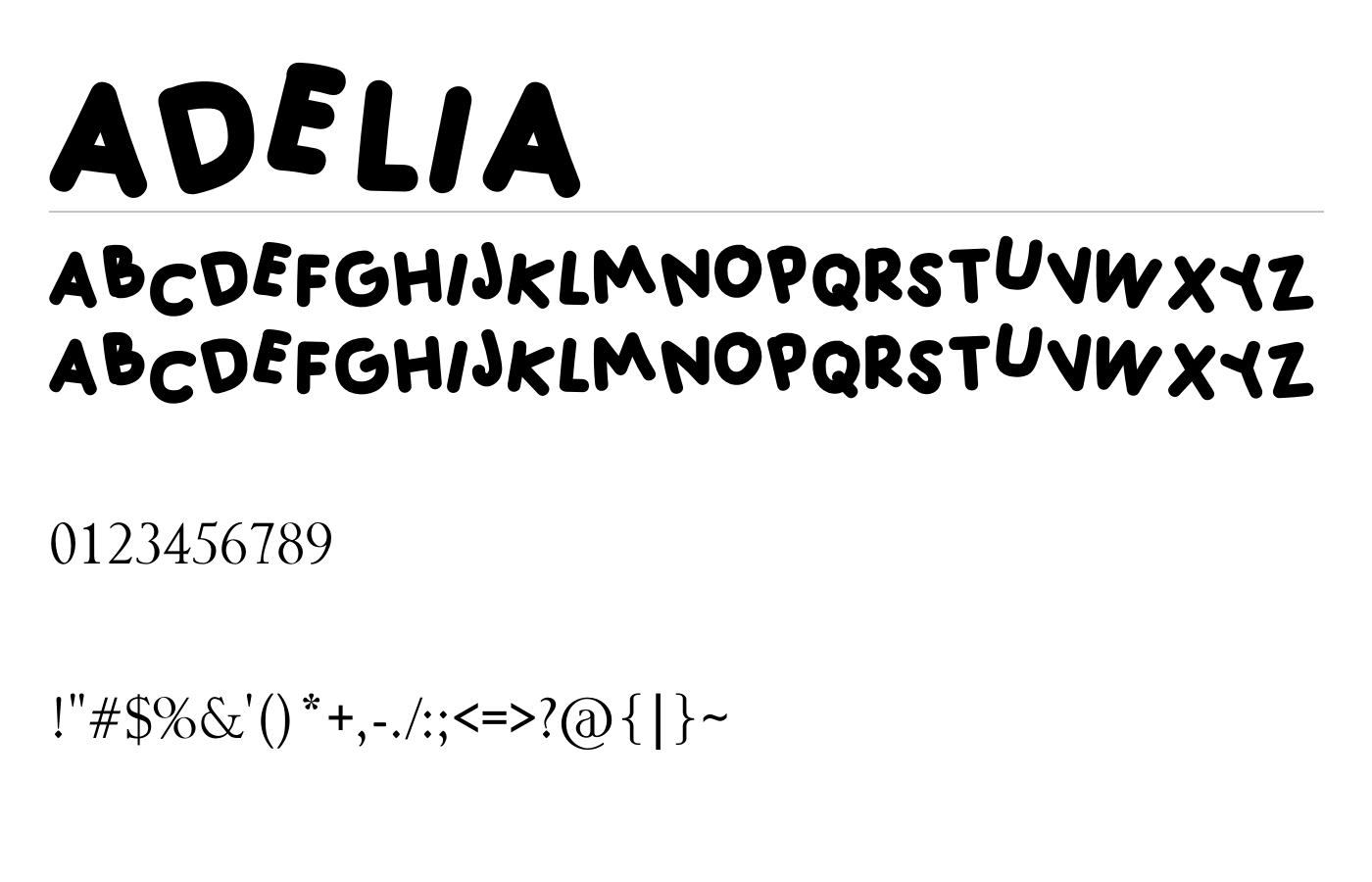
Adelia is a playful, bold sans-serif font with rounded, irregular strokes that give it a hand-drawn, whimsical feel. Its lively and quirky character makes it perfect for casual designs, children's books, or creative branding that seeks an approachable and fun personality. The font’s clear, chunky shapes maintain readability while adding a distinctive, friendly charm.
ADELIA Font
About ADELIA Font